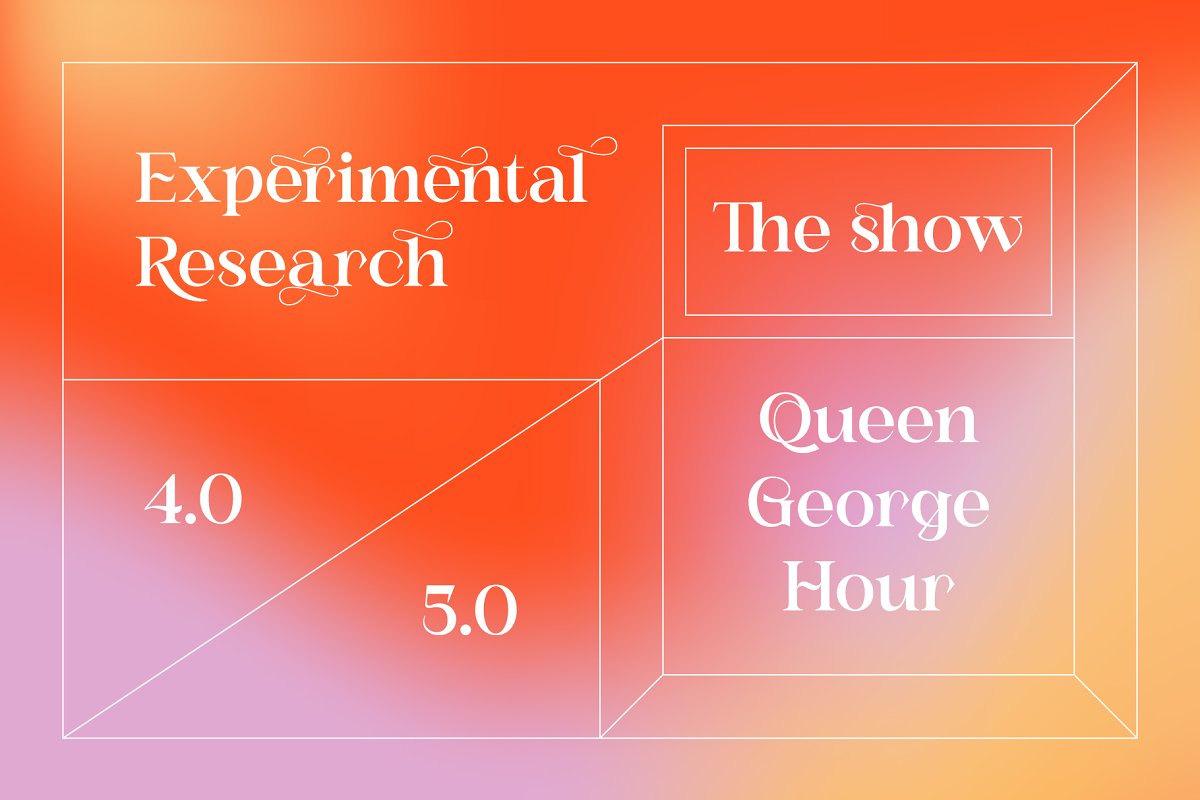
About the Shunsine Modern Serif Font
Best Seller FontNiguella – Modern Serif Font https://crmrkt, com/RNa10kRollston – Elegant Serif Font https://crmrkt, com/BOG67aShunsine is a distinct and elegant display serif font, Its stylish alternates and ligatures make this font the perfect match for any project, There are additional ways to access alternates, using Character Map (Windows), Nexus Font (Windows), Font Book (Mac), or a software program such as PopChar (for Windows and Mac)